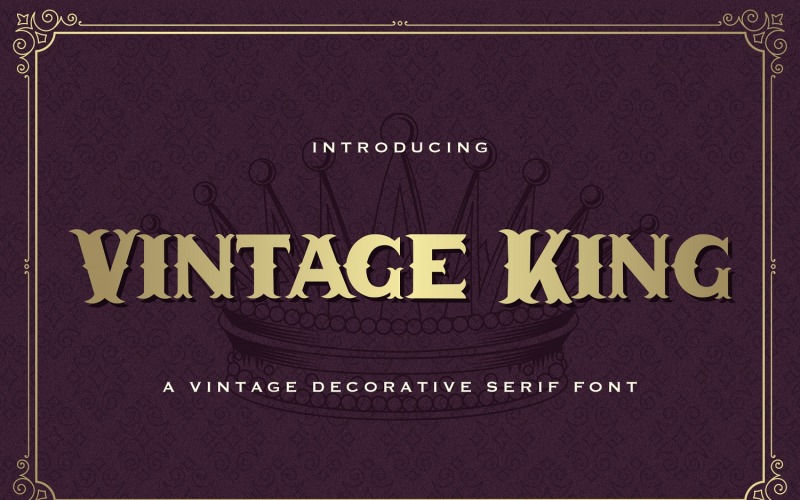
Vintage King - Decorative Serif Font
Introducing Vintage King - Decorative Serif Font
Vintage King is a unique, decorative and modern serif font. This playful typeface will look truly outstanding in a wide range of contexts.